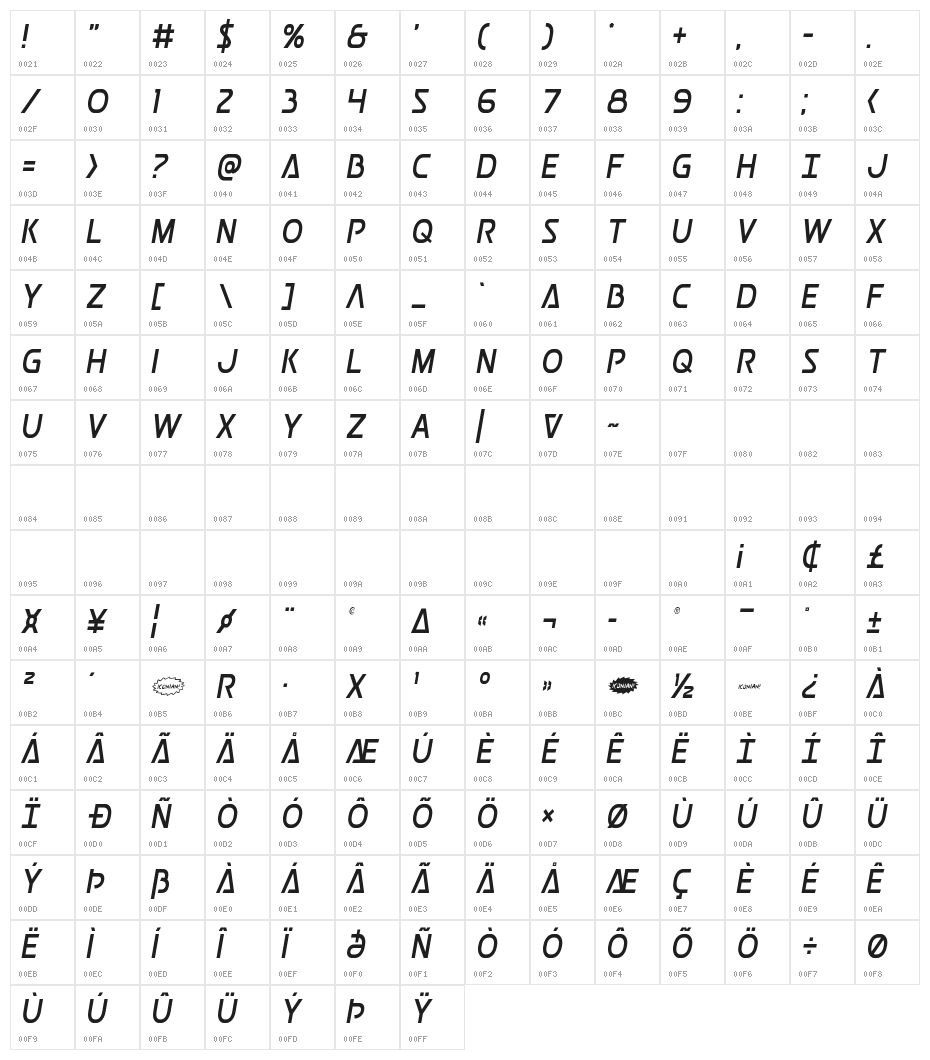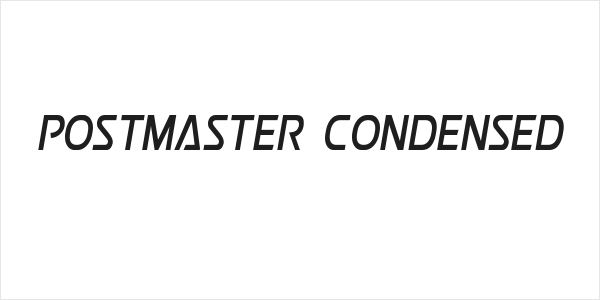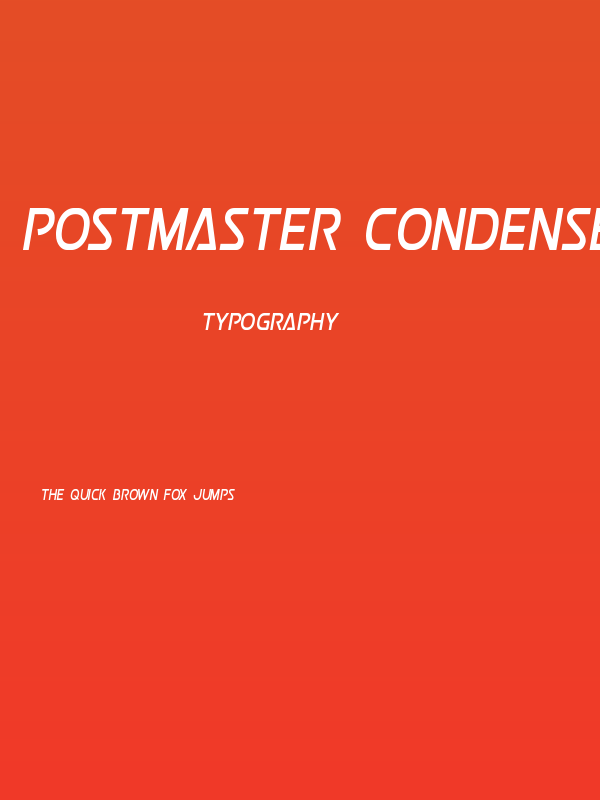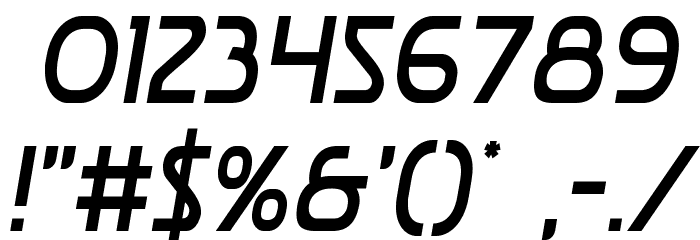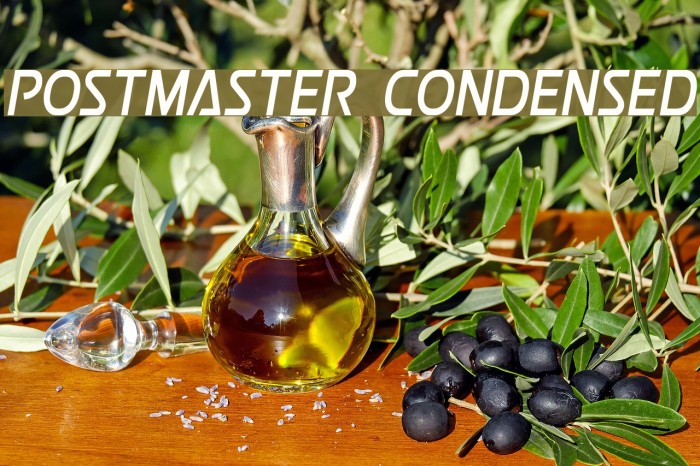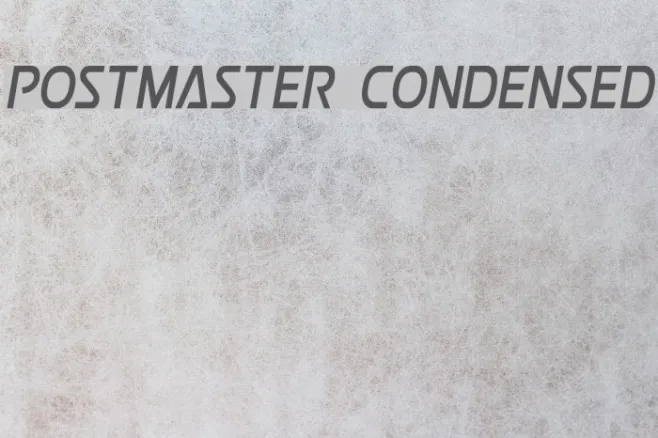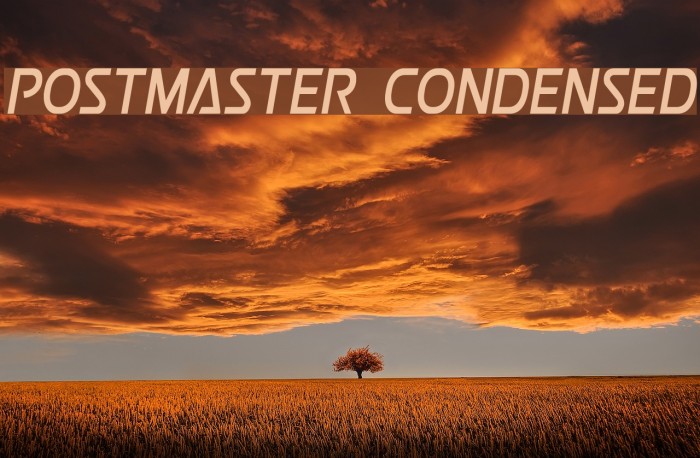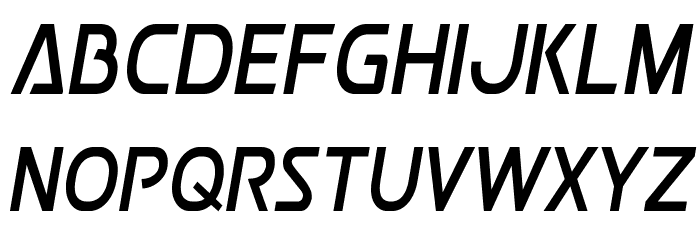
Postmaster Condensed Font
Postmaster Condensed Description
This font features a modern, sleek design with a condensed structure that emphasizes verticality and sharp angles. The characters are slightly italicized, giving a sense of motion and dynamism. The strokes are consistent in weight, providing a uniform appearance across all characters. The spacing between characters is tight, enhancing the compact feel of the font. The overall style is contemporary, making it suitable for projects that require a clean and professional look. The numerals and special characters maintain the same stylistic elements, ensuring cohesion throughout any text.
| Proposed Projects | Ideal for branding, advertising, and editorial design where a modern and dynamic appearance is desired. |